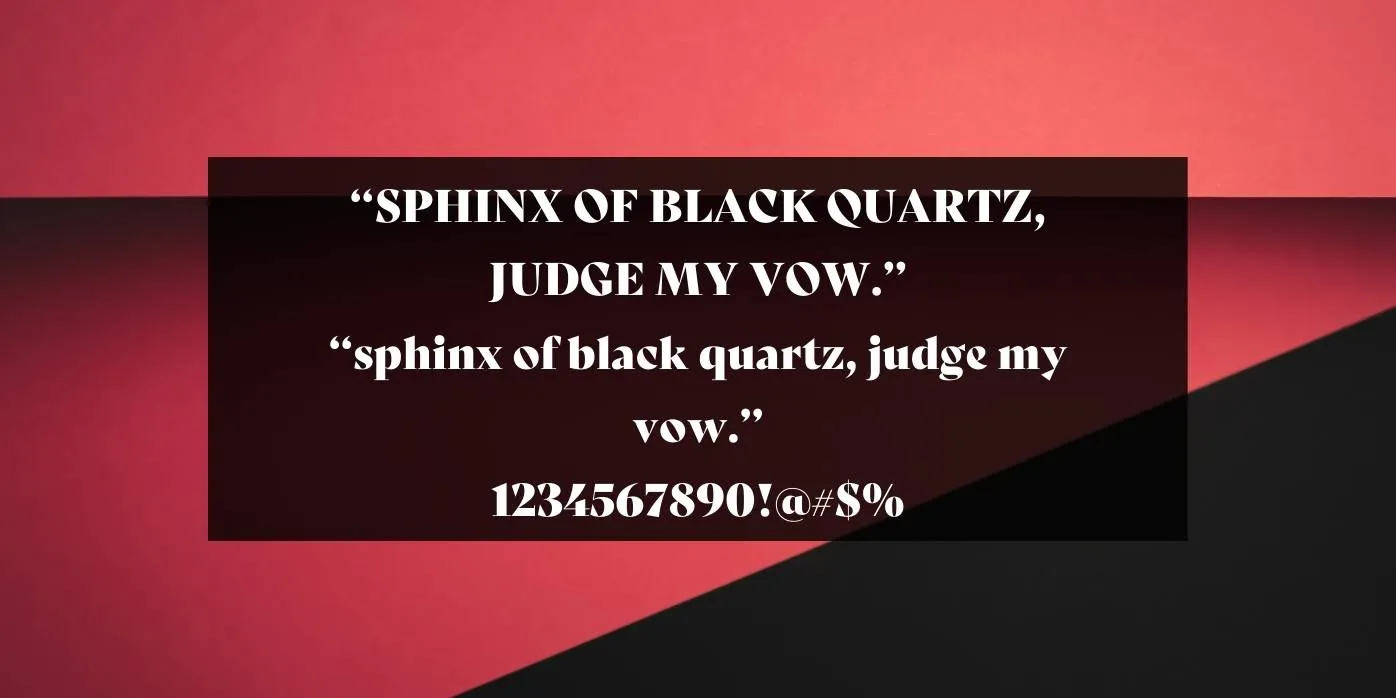
Bely Font
In this article, we discuss a marvelous typeface known as Bely Font. It is from the serif family and was designed by Roxane Gataud. This font is perfect for those who need a little something extra when it comes to their documents or presentations. This classy font includes several different styles, such as Regular, Bold, Italic, and Black.
Each style has its own unique characteristics that make it stand out from the rest. Bely Font also includes a set of small caps for an even more polished look. It is also suitable for Adobe and canva. Its copy and paste function is very attractive for various designs.
For more classic features, you will have to use its alternative tiffany font which has the same features. One of the best things about Bely Font is that it is very versatile. It can be used for a variety of different purposes, such as business documents, resumes, or even personal letters. No matter what you need it for, Bely Font is sure to add a touch of class to your work.